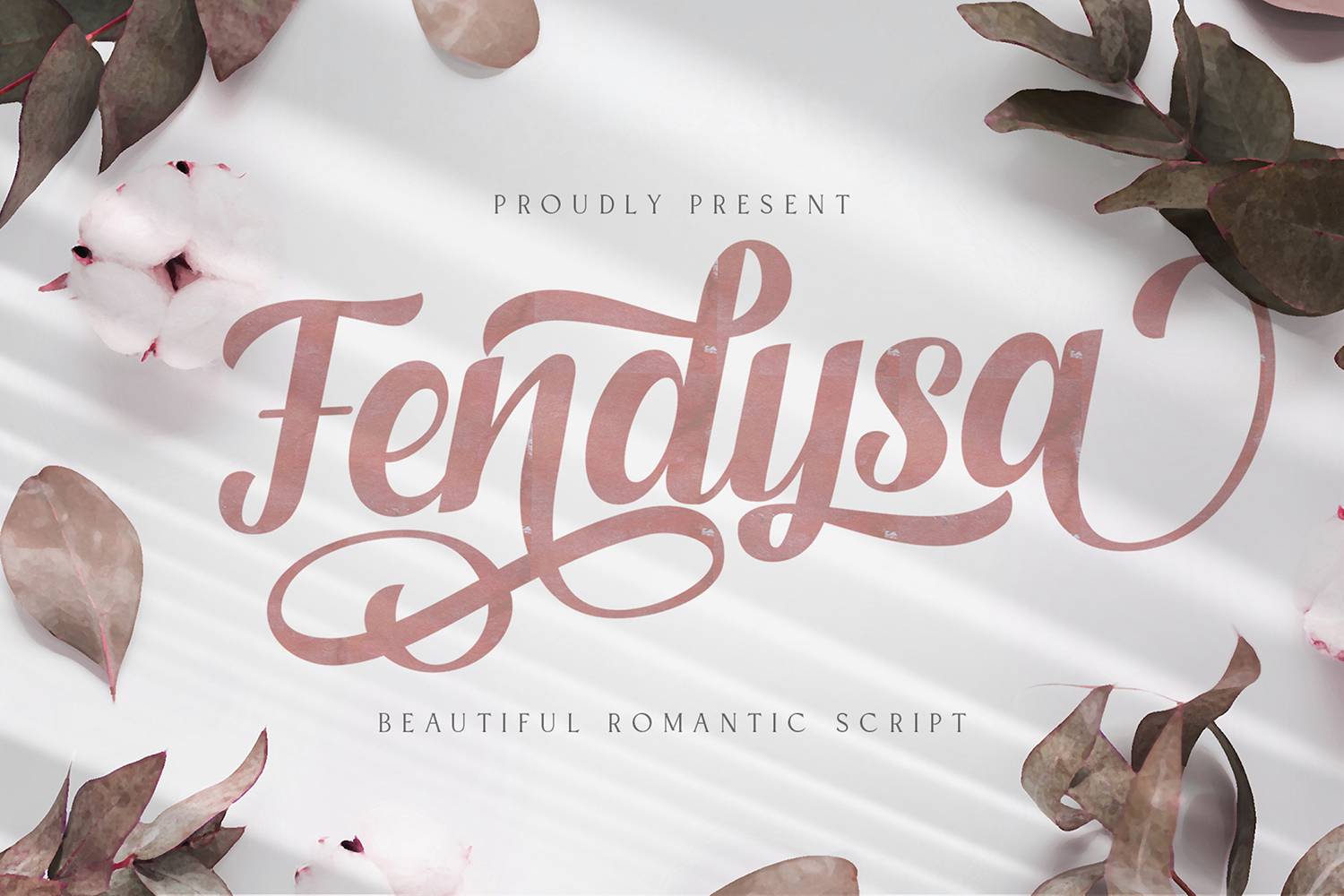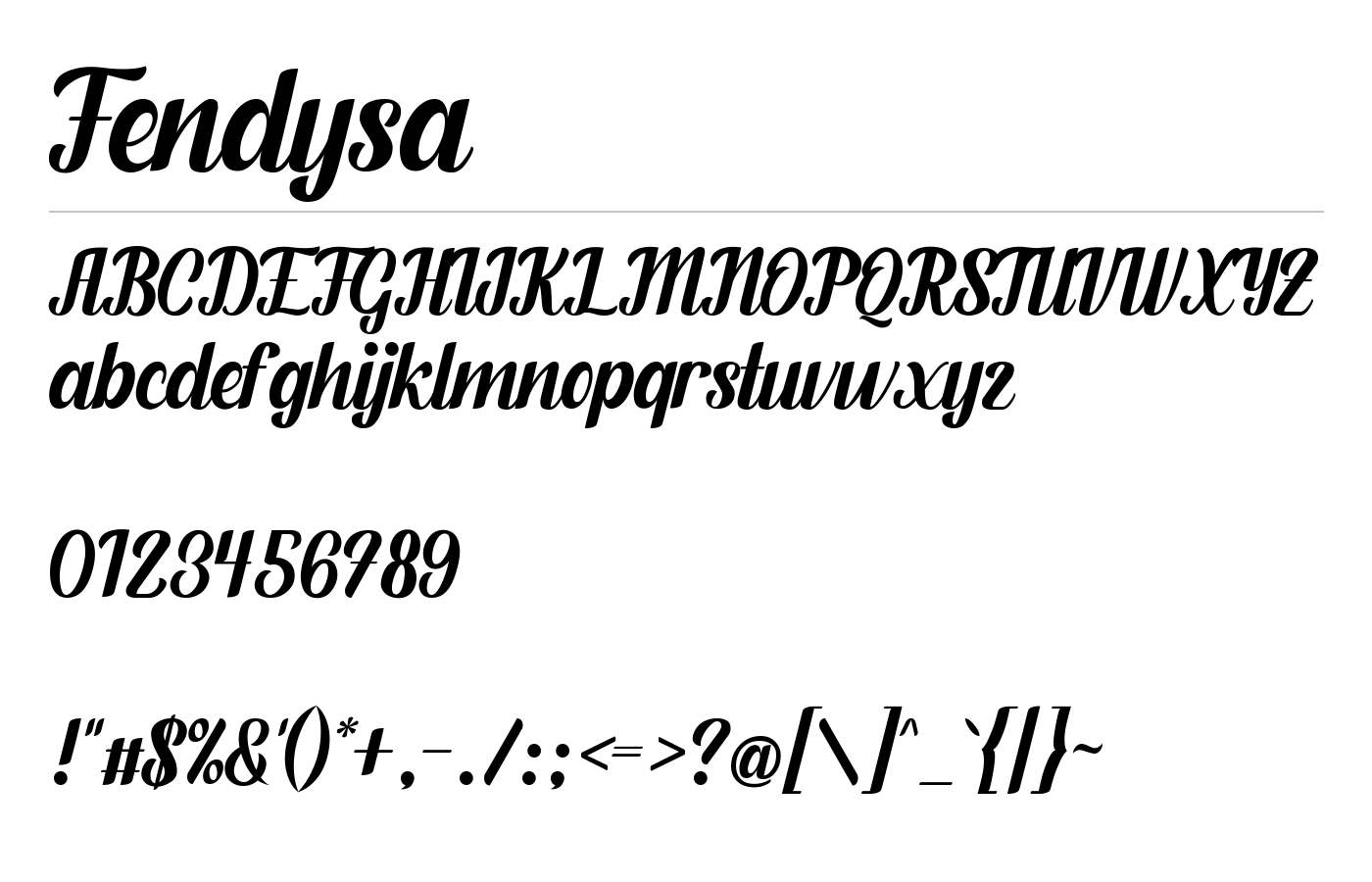
Fendysa is a stylish script font with a bold, italicized look that blends elegance and energy. Its smooth curves and moderately high contrast give it a modern yet classic feel, making it perfect for fashion branding, logos, and eye-catching headlines. This font’s flowing letterforms add a sophisticated, dynamic touch to designs that need personality and flair.
Fendysa Font
About Fendysa Font